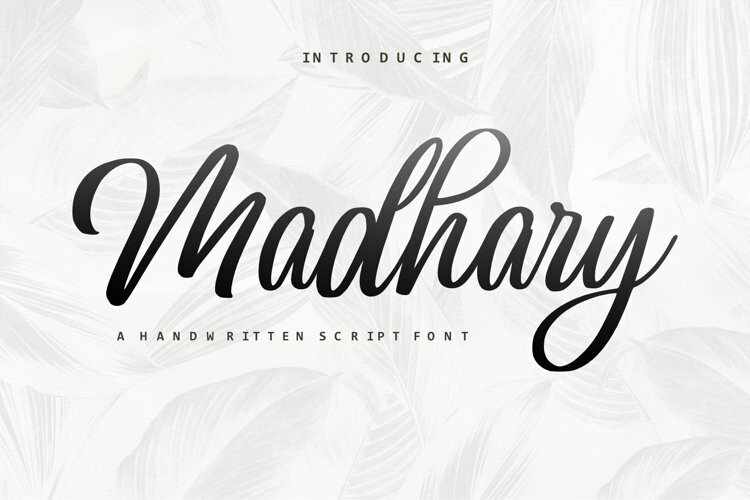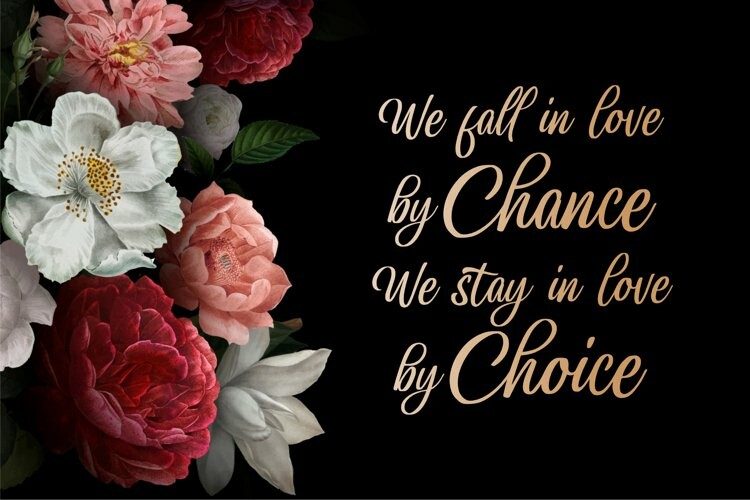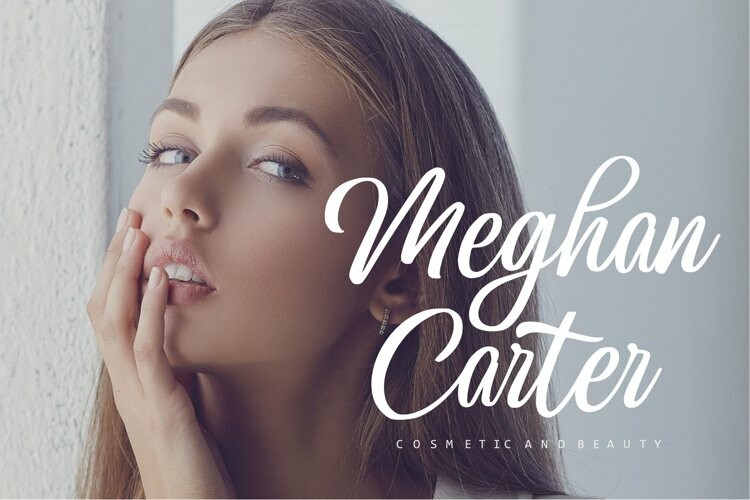
Madhary Font
Madhary FontMadhary is a chic, refined script font. Its stylish ligatures make this font the perfect match for any project.
This font is consisting of a fashionable style script make looks classy and touch of stylish.
This font was created to look as close to a natural handwritten script as possible.
It is perfect for branding projects, logos, wedding designs, social media posts, advertisements, product packaging, product designs, label, photography, watermark, invitation, stationery and anything that you want.